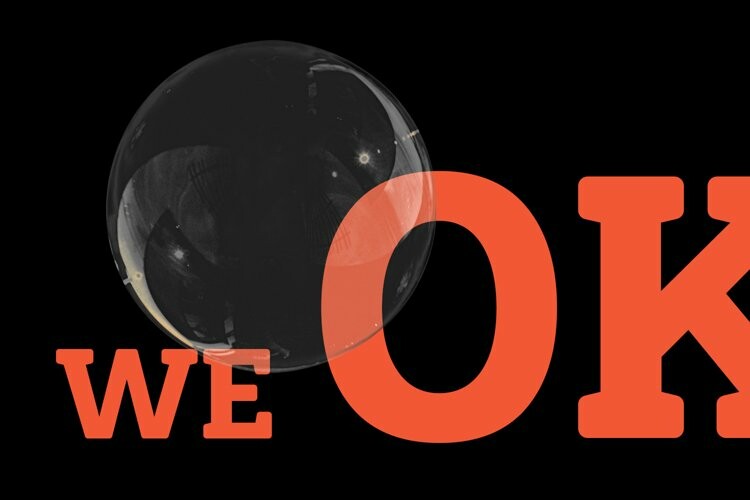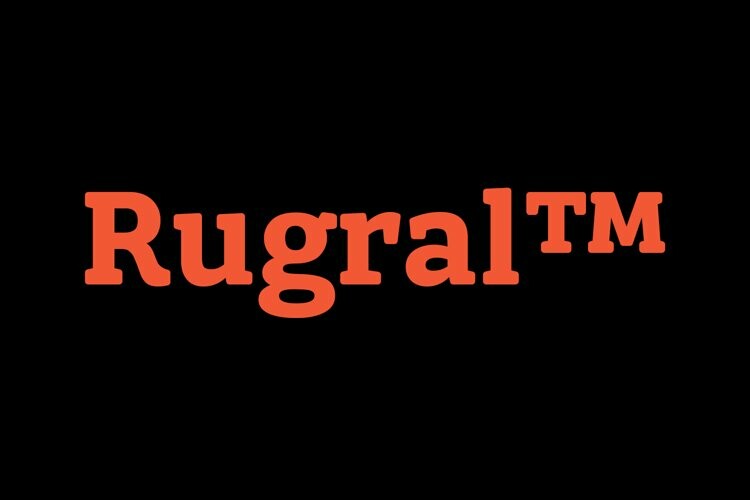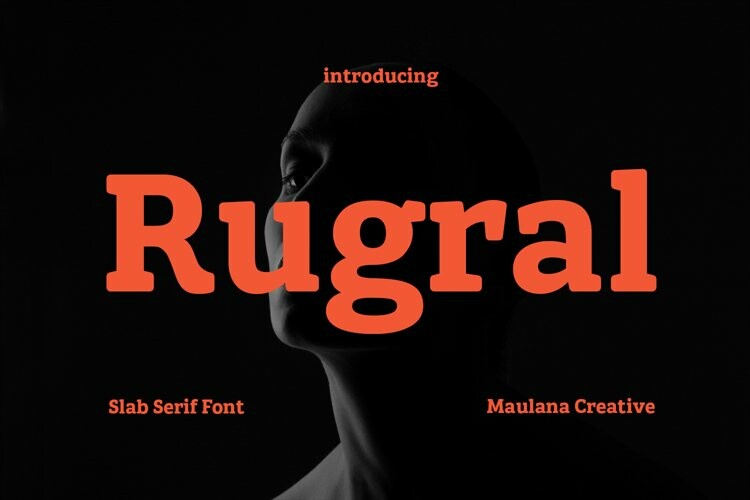
Rugral Slab Serif Font
Rugral Slab Serif FontRugral is a Slab serif font. Bold stroke, fun character with a bit of ligatures and alternates. To give you an extra creative work. Rugral font support multilingual more than 100+ language. This font is good for logo design, Social media, Movie Titles, Books Titles, a short text even a long text letter and good for your secondary text font with script or serif. Make a stunning work with Rugral font.